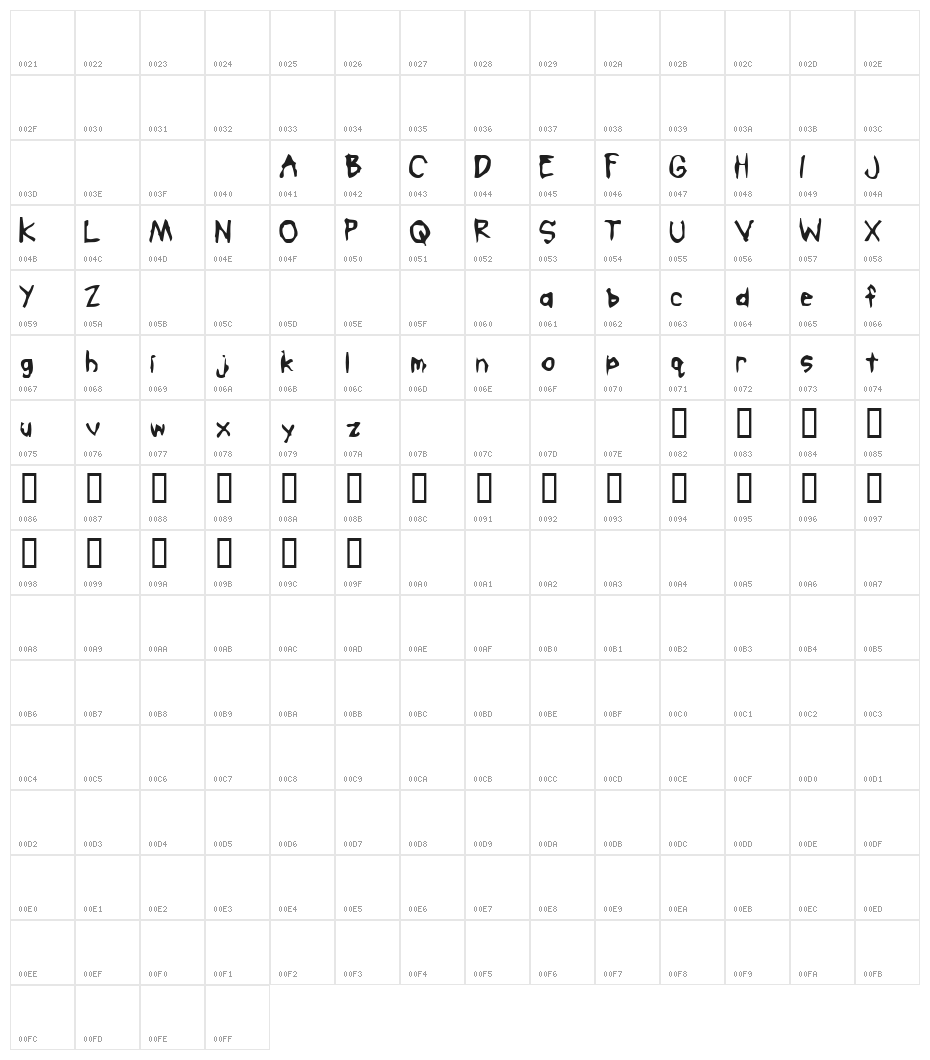
Mobster Font
Mobster Description
This font features a bold and dynamic style with a distinctly irregular and hand-drawn appearance. The characters are thick and exhibit a playful, almost cartoonish quality, with exaggerated curves and angles that give it a unique personality. The uppercase letters are particularly striking, with a strong presence and a slightly chaotic arrangement that adds to the font's charm. The lowercase letters maintain this whimsical style, ensuring consistency across the typeface. The numbers and special characters follow the same design principles, making this font versatile for creative projects. Its boldness and unique character make it suitable for eye-catching designs.
| Overall Style | Playful and Cartoonish |
| Proposed Projects | Ideal for comic books, children's book covers, playful branding, and creative posters. |